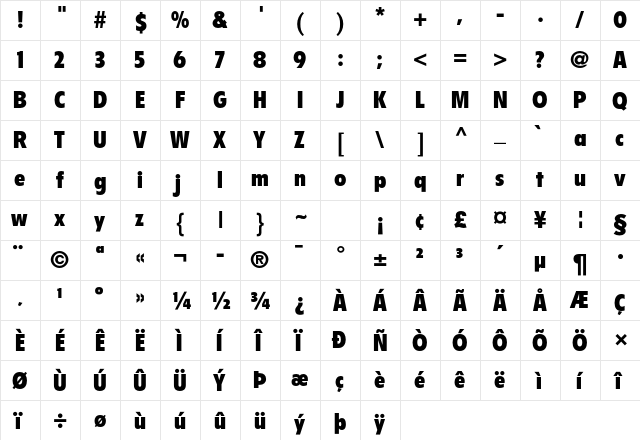
Flyer LT Std Black Condensed
| Style | Black Condensed |
| Designer | Unknown |
Design Context for Flyer LT Std Typeface
Flyer LT Std takes a measured approach to typography — its balanced proportions and neutral character make it a reliable workhorse for both digital and print work. Its slender proportions lend an understated elegance to any composition. Its narrow stance lets it pack a punch even in space-constrained designs.